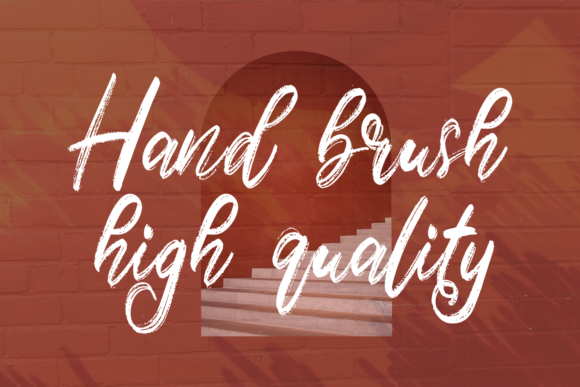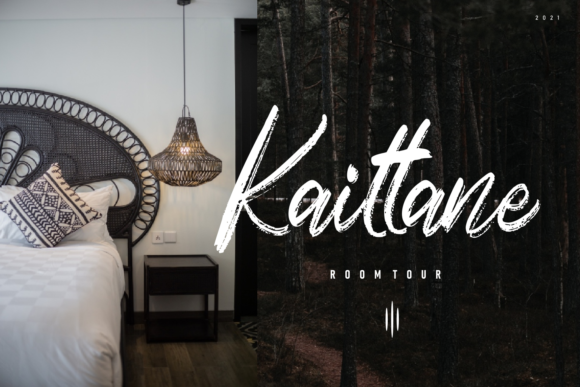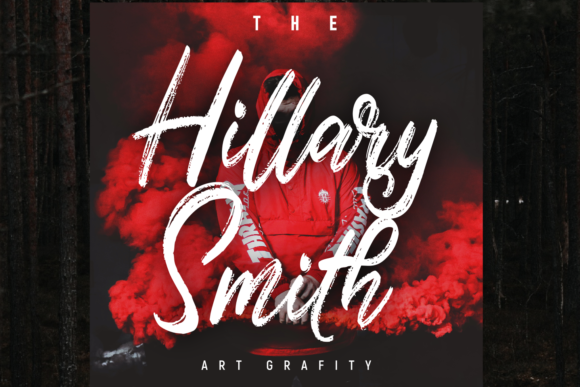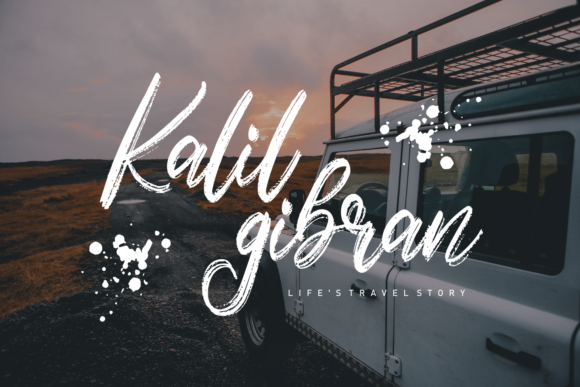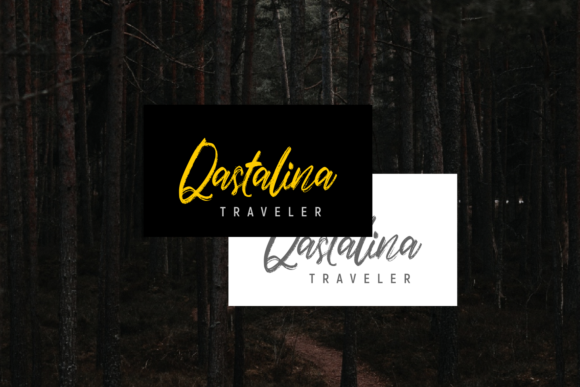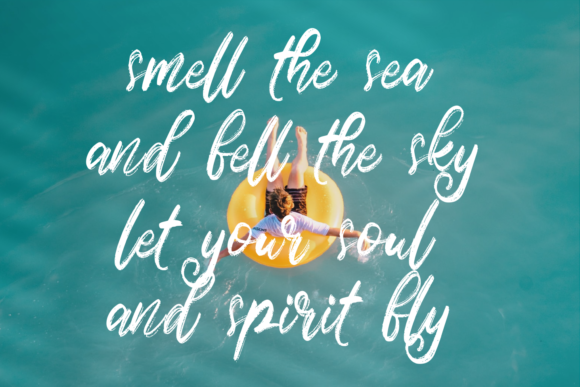
Introduction to Sathiresa Font
As designers, we’ve all been there – stuck in front of a blank canvas, struggling to find the perfect font to bring our creative vision to life. But what if I told you that there’s a font that can effortlessly elevate your designs and make them truly unforgettable? Meet the Sathiresa Font, a stunning script font that exudes timeless elegance and charm.
Imagine having a high-quality design resource at your fingertips, one that’s not only free to download but also offers a transparent background, allowing you to seamlessly integrate it into your creative project. Whether you’re a seasoned designer or just starting out, the Sathiresa Font is an invaluable asset that will take your designs to the next level.
Key Features of Sathiresa Font
- High-quality, unique design for creative projects: Sathiresa Font offers a distinctive and stylish typography suitable for various design applications.
- Transparent background: This feature makes the font versatile and easy to use on any background, ensuring seamless integration with your design.
- High-resolution design: The font is designed to be high-resolution, making it suitable for use in large-scale designs and prints.
- Perfect for design projects: Sathiresa Font is an excellent choice for designers looking for a unique and high-quality typography to elevate their creative projects.
- Easy to use: With its transparent background and high-quality design, Sathiresa Font is an ideal choice for designers who want to add a touch of elegance to their work.
Honest Review: Sathiresa Font
I recently came across the Sathiresa Font while searching for high-quality design resources for a creative project. The font caught my attention with its unique and modern design, making it an excellent addition to any design portfolio.
Here’s what I like about the Sathiresa Font:
- ✨ Clean and sleek design that’s perfect for modern designs
- ✨ Offers a transparent background, making it easy to work with
- ✨ Suitable for a wide range of creative projects, from branding to editorial design
- ⚠️ Limited character set, which might be a concern for designers who need to work with a large text block
- ⚠️ Not as versatile as some other fonts in terms of font weights and styles
Overall, I’m impressed with the Sathiresa Font’s unique design and free availability. While it has its limitations, it’s a great resource for designers who need a modern and clean font for their creative projects.
Tips for Getting the Most Out of Sathiresa Font
Experiment with different font sizes and styles to achieve the desired look for your creative project. Use the Sathiresa Font in combination with other design elements to create a cohesive and visually appealing design.
The Sathiresa Font is suitable for a variety of creative projects, including logos, branding materials, and advertising campaigns. Its high-quality design and transparent background make it an ideal choice for designers looking for a versatile and reliable font.
Does the Sathiresa Font include a transparent background?
Yes, the Sathiresa Font typically includes a transparent background, making it easy to use in various design scenarios, such as overlaying text on images or creating custom graphics with a transparent background.